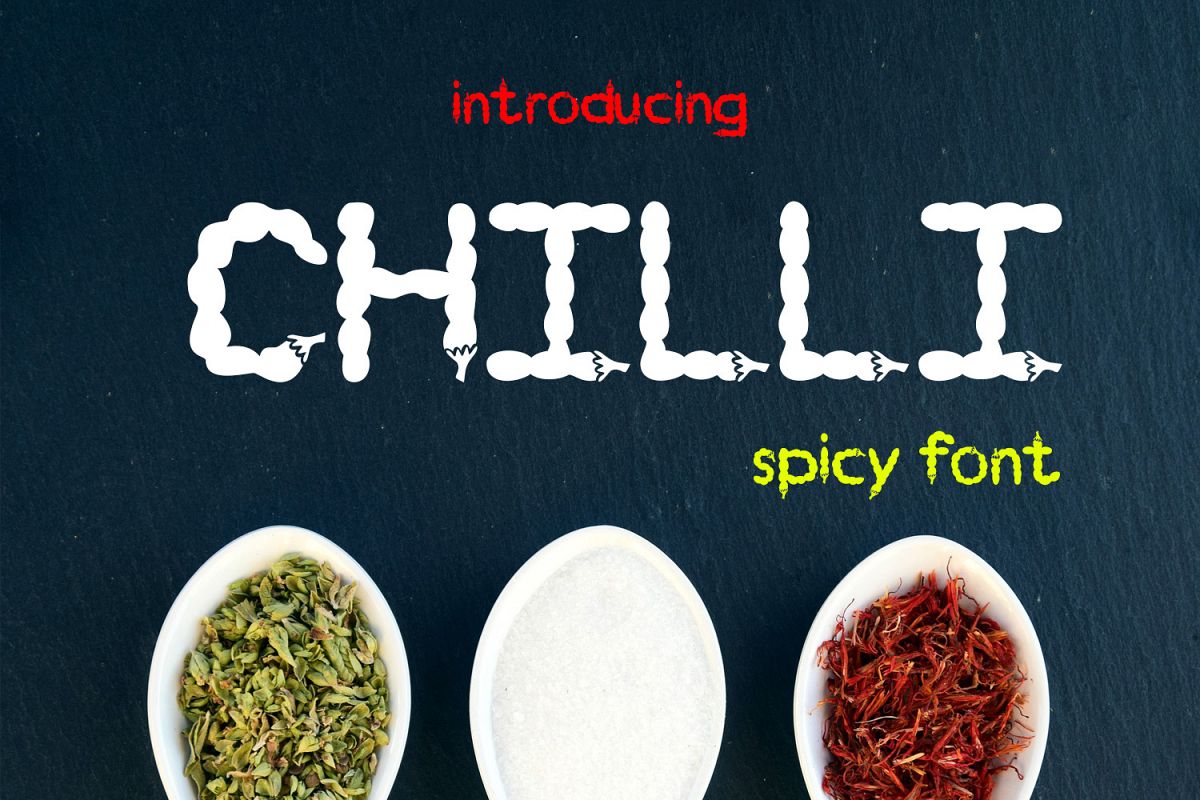
EP Chilli - Spicy Font
EP Chilli
EP Chilli - Spicy Font
This font is perfect for wedding cards, quotes, headings, blogs, logos, invitations and more! Font includes all caps, punctuation, and numbers.